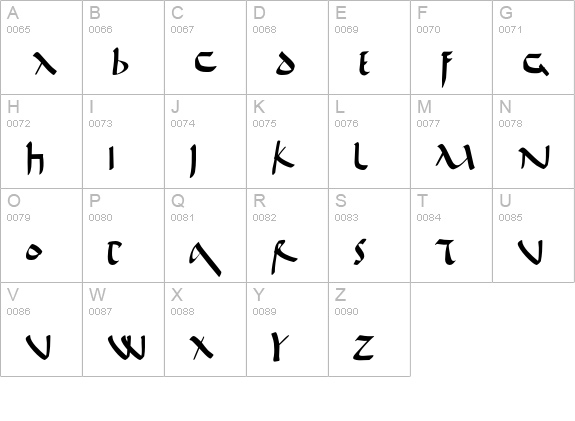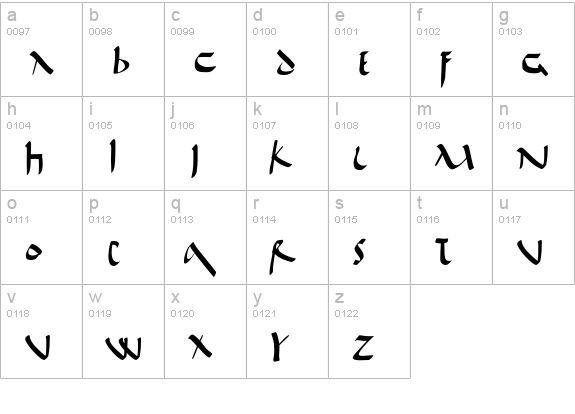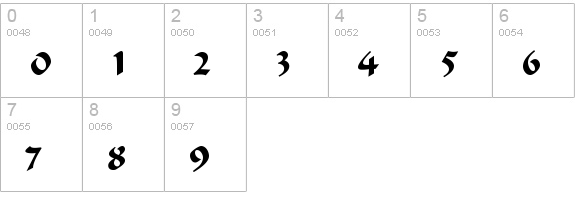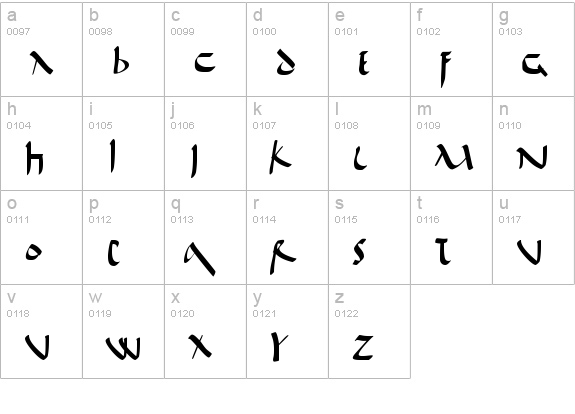
DeBellis Font Details
DeBellis font is a stunning display typeface that combines elegance with modernity, making it perfect for a wide range of design projects. Its sleek lines and sophisticated curves give any text a touch of sophistication and style. Whether you're designing invitations, logos, posters, or any other creative project, DeBellis font is sure to make a statement. The best part? DeBellis font is completely free to download at FontsMarket.com. This means you can elevate your designs without breaking the bank. With its timeless appeal and versatility, DeBellis font is a must-have addition to any designer's toolkit. Download it today and see the difference it can make in your projects!